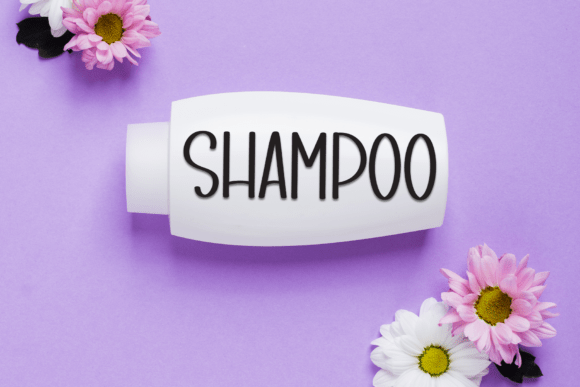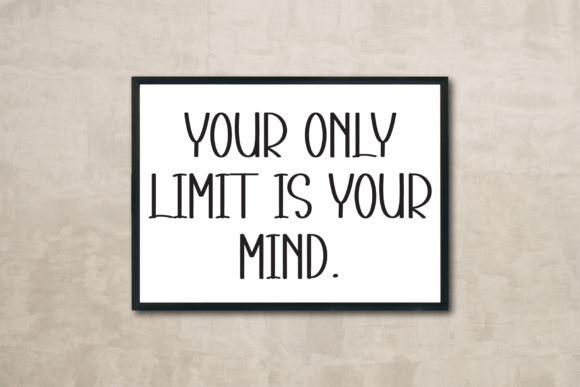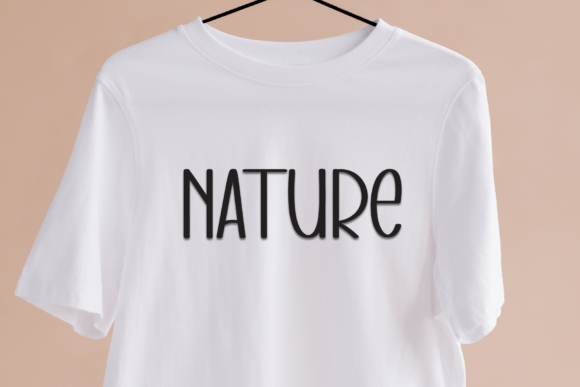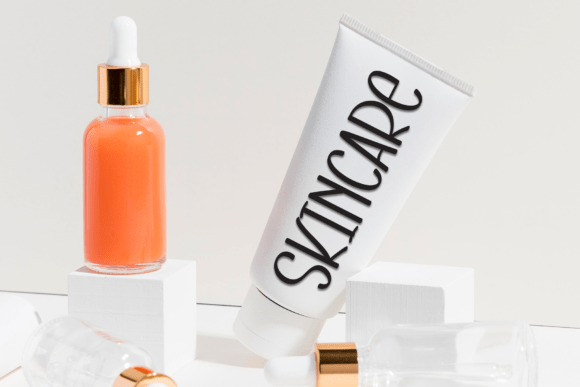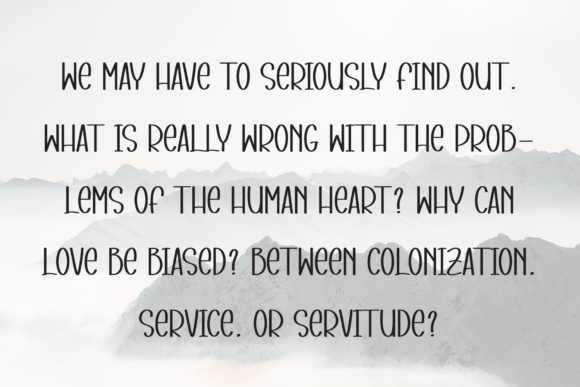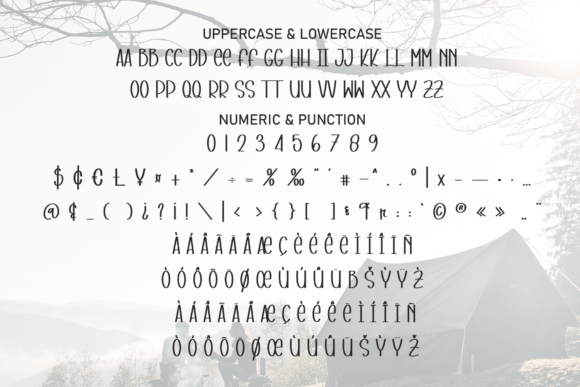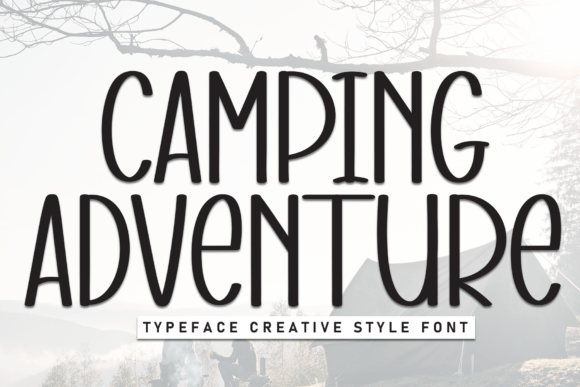
Camping Adventure Font: Unleash the Great Outdoors in Your Designs
Are you ready to take your designs on a thrilling adventure? Look no further than the Camping Adventure Font, a creative sans serif font that embodies the spirit of the great outdoors. With its handcrafted, friendly, and adventurous character, this font is perfect for kids’ projects, outdoor events, travel-themed merchandise, and any design that celebrates exploration and the wild.
The Essence of Camping Adventure Font
Camping Adventure Font is a unique and refreshing sans serif font that captures the essence of a camping adventure. Its handcrafted feel gives it a personal touch, making it ideal for designs that require a friendly and approachable tone. The font’s adventurous character is perfect for inspiring a sense of exploration and freedom, making it a great choice for outdoor enthusiasts and travel brands.
Perfect for Kids’ Projects
Kids’ projects require a font that is fun, playful, and engaging. Camping Adventure Font fits the bill perfectly. Its friendly and adventurous character makes it an excellent choice for children’s books, educational materials, and activity sheets. The font’s clear and legible design ensures that it is easy to read, making it perfect for young learners.
Outdoor Events and Travel-Themed Merchandise
For outdoor events and travel-themed merchandise, Camping Adventure Font is an excellent choice. Its adventurous character and handcrafted feel make it perfect for branding, posters, flyers, and other promotional materials. The font’s versatility ensures that it can be used for a wide range of applications, from camping and hiking to travel and tourism.
Designing with Camping Adventure Font
Designing with Camping Adventure Font is a breeze. Its clean and simple design makes it easy to pair with other fonts, and its legibility ensures that your message gets across clearly. The font is perfect for headlines, body copy, and even captions, making it a versatile addition to any design project.
Tips for Using Camping Adventure Font
- Use Camping Adventure Font for headlines and titles to add a touch of adventure and excitement to your design.
- Pair Camping Adventure Font with other fonts to create a unique and visually appealing design.
- Experiment with different colors and textures to give your design a handcrafted feel.
- Use Camping Adventure Font for body copy to add a friendly and approachable tone to your design.
Why Choose Camping Adventure Font?
Camping Adventure Font is a unique and versatile font that offers a range of benefits for designers and crafters. Here are just a few reasons why you should choose Camping Adventure Font for your next project:
- Handcrafted, friendly, and adventurous character
- Perfect for kids’ projects, outdoor events, and travel-themed merchandise
- Clean and legible design
- Versatile and easy to pair with other fonts
Camping Adventure Font is a creative and versatile font that is perfect for designers and crafters who want to add a touch of adventure and excitement to their designs. With its handcrafted, friendly, and adventurous character, this font is ideal for kids’ projects, outdoor events, travel-themed merchandise, and any design that celebrates exploration and the wild. So why wait? Download Camping Adventure Font today and unleash the great outdoors in your designs!